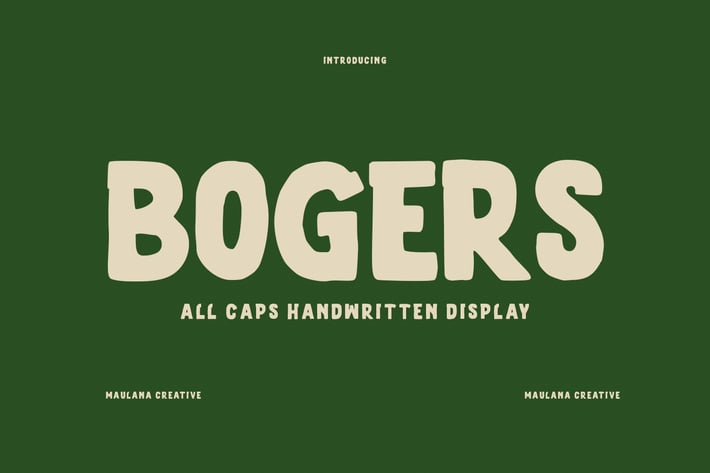
Bogers Sans Serif Display Font
Bogers is an unique All caps handwritten display script font. With bold consist stroke, fun character with a bit of ligatures and alternates. To give you an extra creative work. Bogers font support multilingual more than 100+ language. This font is good for logo design, Social media, Movie Titles, Books Titles, a short text even a long text letter and good for your secondary text font with sans or serif. Make a stunning work with Bogers font.